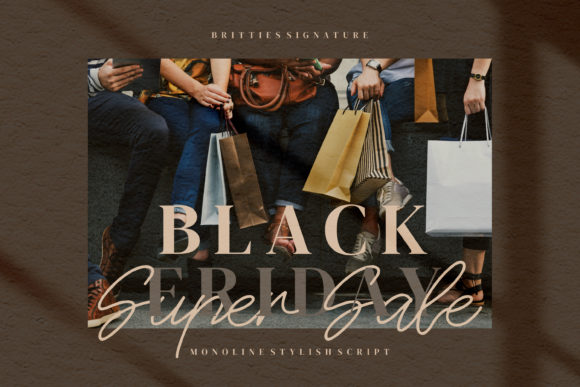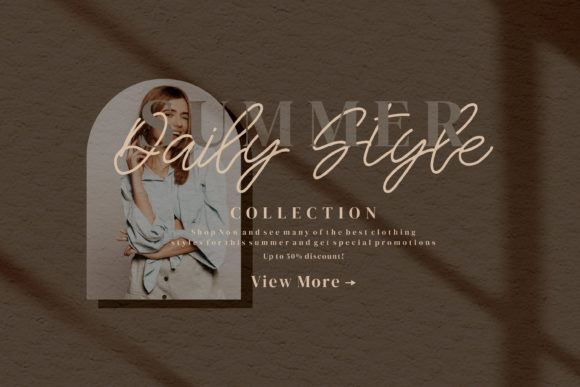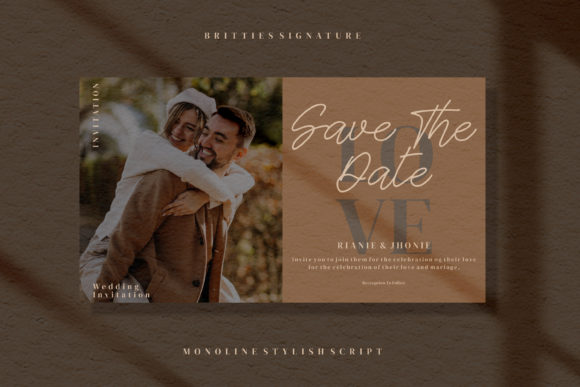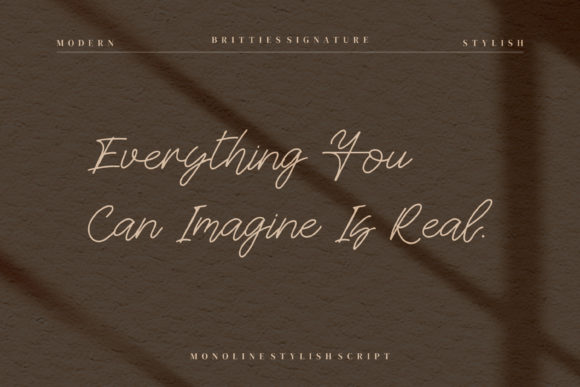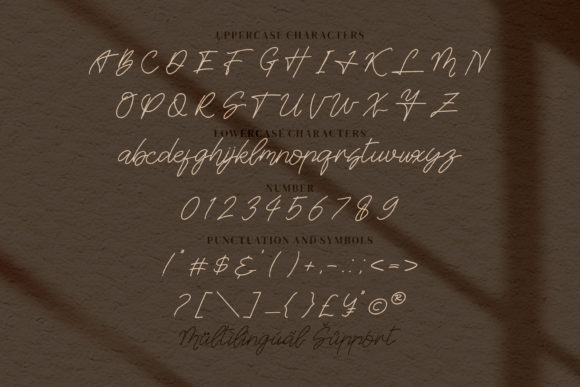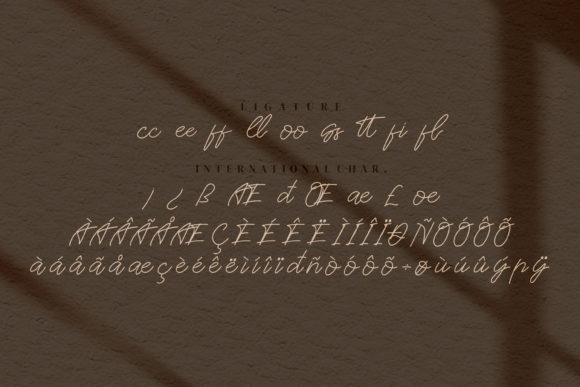
Britties Signature Font: Elevate Your Designs with Elegance and Sophistication
In the world of typography, a font can make all the difference in the aesthetic and tone of a design. For designers and crafters seeking to add a touch of elegance and sophistication to their work, Britties Signature Font is an exceptional choice. This beautiful and refined script font boasts a classy, modern look that’s perfect for a wide range of applications, from logos and branding to invitations, stationery, and wedding designs.
What is Britties Signature Font?
Britties Signature is a meticulously crafted script font that exudes refinement and luxury. Its elegant and modern design makes it an ideal choice for designers looking to create stunning visual content that stands out from the crowd. With its flowing lines and beautiful letterforms, Britties Signature Font is sure to add a touch of sophistication to any design.
Key Features of Britties Signature Font
- Elegant and Refined Design: Britties Signature Font features a beautiful, flowing script design that’s perfect for creating elegant and sophisticated designs.
- Classy and Modern Look: This font boasts a classy and modern aesthetic that’s ideal for designers seeking to create visually stunning content.
- Versatile: Britties Signature Font can be used for a wide range of applications, including logos, branding, invitations, stationery, wedding designs, social media posts, and more.
- Easy to Read: Despite its elegant design, Britties Signature Font is easy to read, making it perfect for body text and headlines.
Use Cases for Britties Signature Font
Britties Signature Font is an incredibly versatile font that can be used in a variety of design applications. Here are some use cases to consider:
- Logos and Branding: Create a stunning logo or brand identity with Britties Signature Font that exudes elegance and sophistication.
- Invitations and Stationery: Add a touch of luxury to your invitations, stationery, and greeting cards with this beautiful script font.
- Wedding Designs: Make your wedding designs truly unforgettable with Britties Signature Font, perfect for wedding invitations, programs, and more.
- Social Media Posts: Elevate your social media posts with this elegant font, perfect for creating visually stunning content that stands out from the crowd.
Why Choose Britties Signature Font?
With so many fonts available, why choose Britties Signature Font? Here are just a few reasons why designers and crafters love this beautiful script font:
- Unique and Distinctive: Britties Signature Font is a unique and distinctive font that will set your designs apart from the crowd.
- Elegant and Sophisticated: This font exudes elegance and sophistication, making it perfect for designers seeking to create high-end designs.
- High-Quality: Britties Signature Font is a high-quality font that’s designed to deliver exceptional results in any design application.
In conclusion, Britties Signature Font is an exceptional choice for designers and crafters seeking to add a touch of elegance and sophistication to their work. With its beautiful and refined script design, classy and modern look, and versatility, this font is perfect for a wide range of design applications. Whether you’re creating logos, branding, invitations, stationery, wedding designs, or social media posts, Britties Signature Font is sure to elevate your designs to the next level.